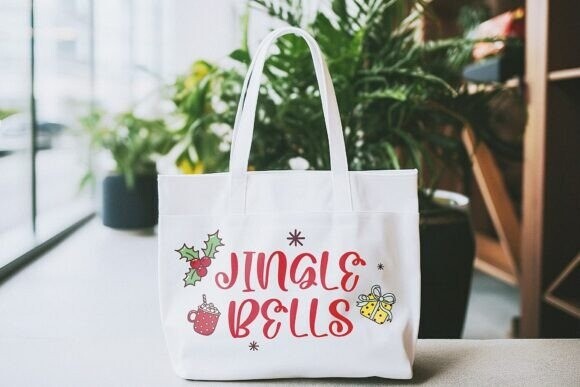
Rustic Joy Font
Rustic Joy Font is a gorgeous handwritten font. Fall in love with its incredibly versatile style and use it to create gorgeous wedding invitations, beautiful stationary art, eye-catching social media posts, and much more!